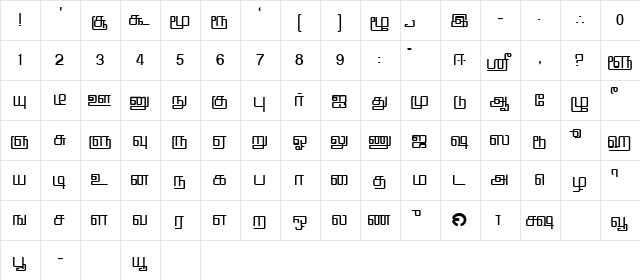
Nattai Regular
Design Context for Nattai Typeface
Nattai takes a measured approach to typography — its balanced proportions and neutral character make it a reliable workhorse for both digital and print work.